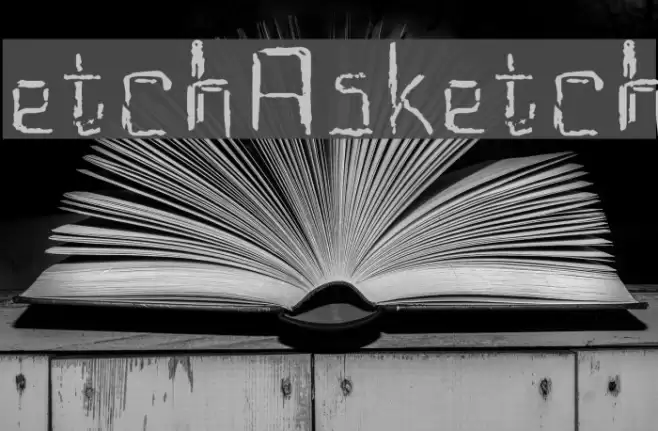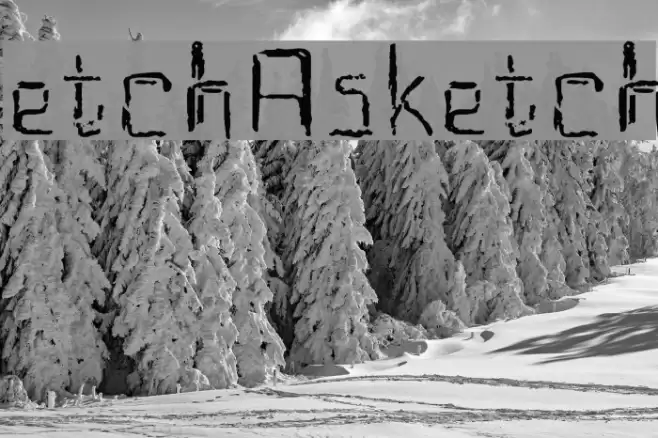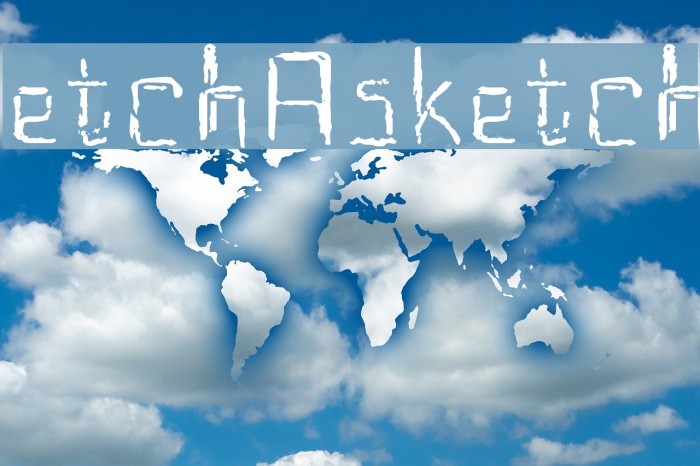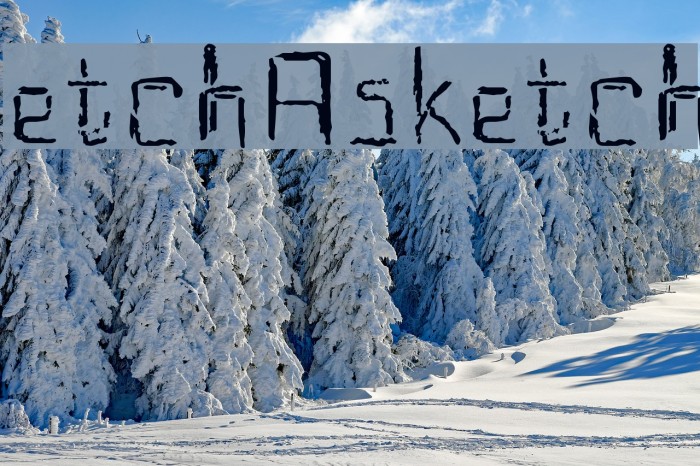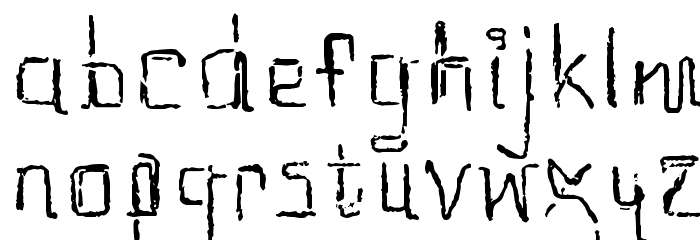
etchAsketch Font
etchAsketch Description
This font features a unique, sketch-like appearance with a rough, hand-drawn quality. The characters are irregular and have a distressed look, giving them a raw and artistic feel. The uppercase and lowercase letters maintain a consistent style, with uneven edges and a textured finish that mimics the effect of a pencil or charcoal sketch. The numbers and special characters follow the same design principles, ensuring a cohesive look across all glyphs. This font is ideal for projects that require a creative, informal, or artistic touch.
A sketch-like, distressed font with a hand-drawn, artistic appearance.
- Proposed Projects: Ideal for art projects, creative posters, informal invitations, and any design needing a hand-crafted look.
- Overall Style: Artistic, Hand-drawn
- Use Case: Logos, Posters, Creative projects